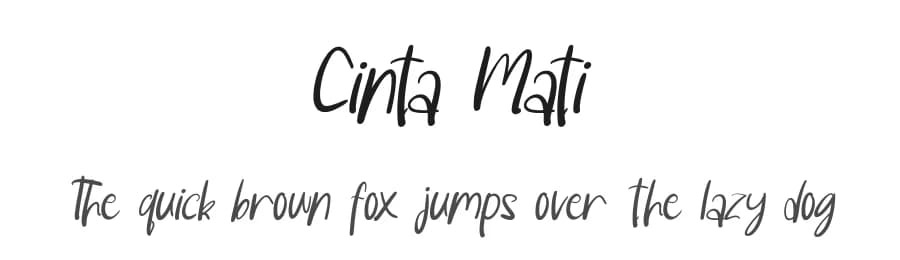
About Cinta Mati Font
Cinta Mati Specifications
| Font Family | Cinta mati |
| Full Name | Cinta mati Italic |
| PostScript Name | Cintamati-Italic |
| Designer | Β©BONGKENGart |
Cinta Mati Font is a script font that shines as a display or heading face. Pair it with a clean sans-serif or serif font for body text β the contrast creates a clear hierarchy while the two styles stay balanced and easy to read.